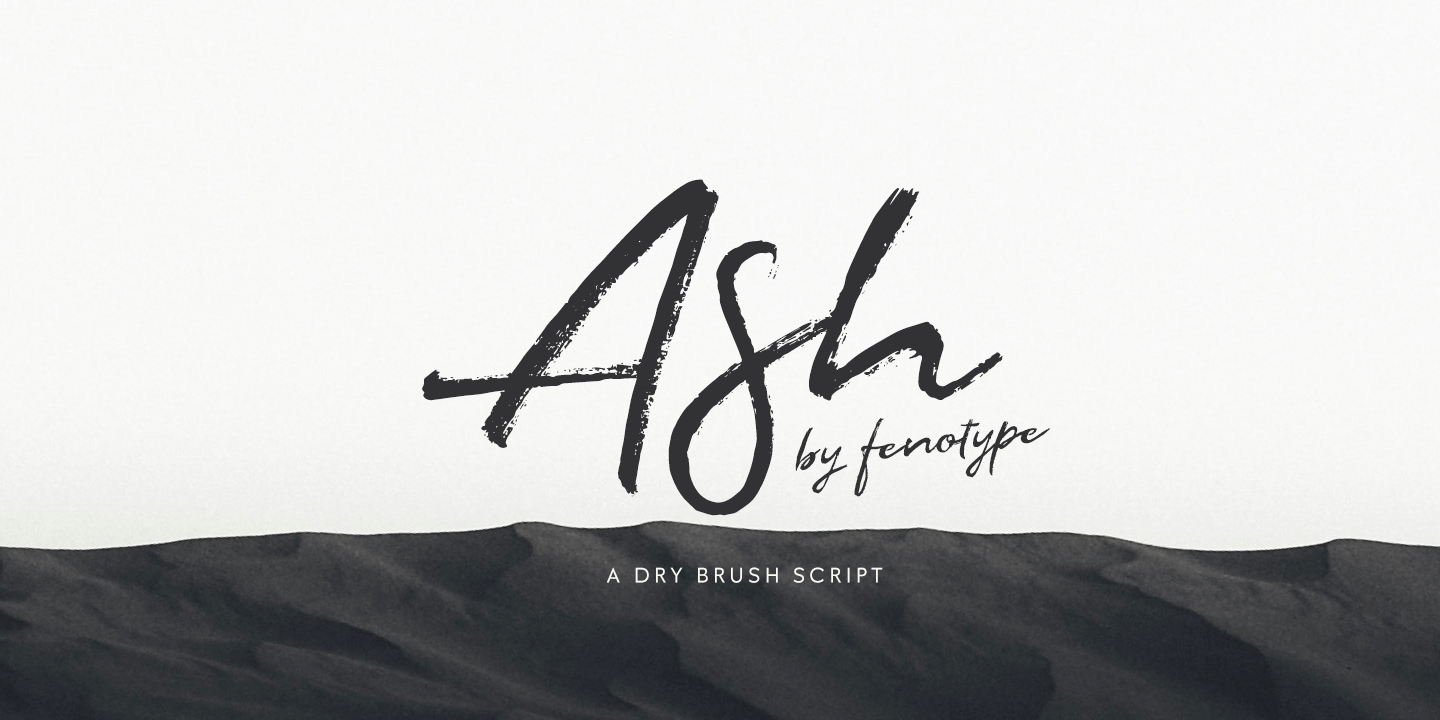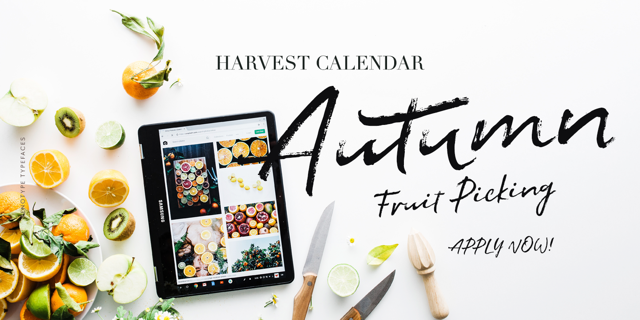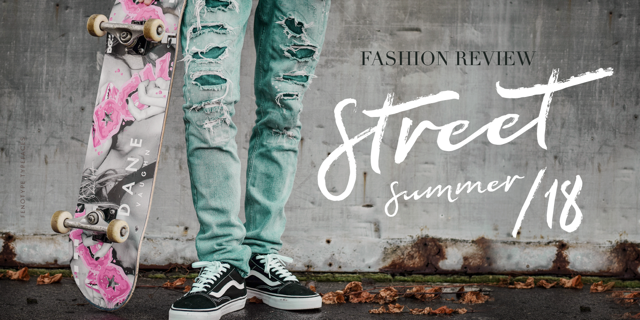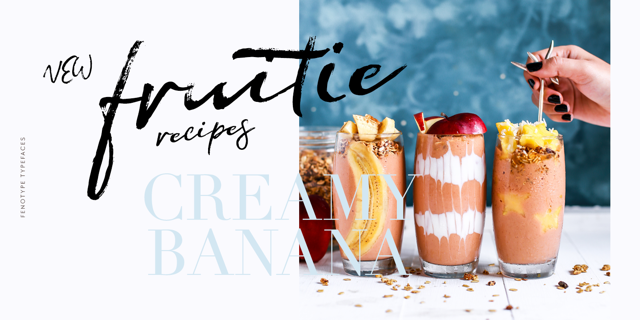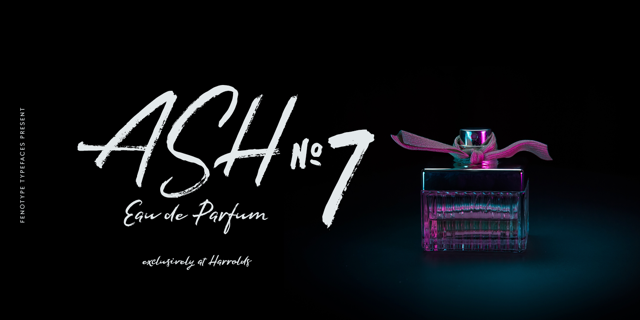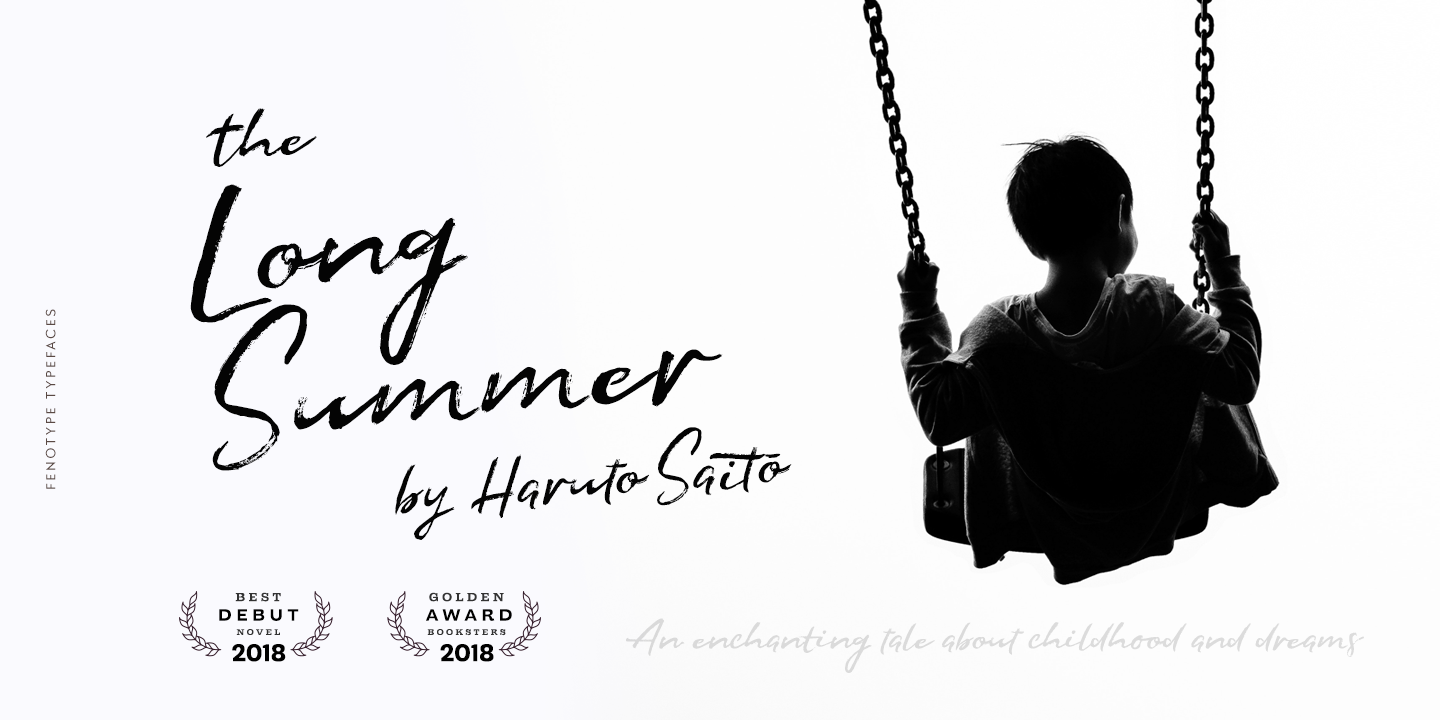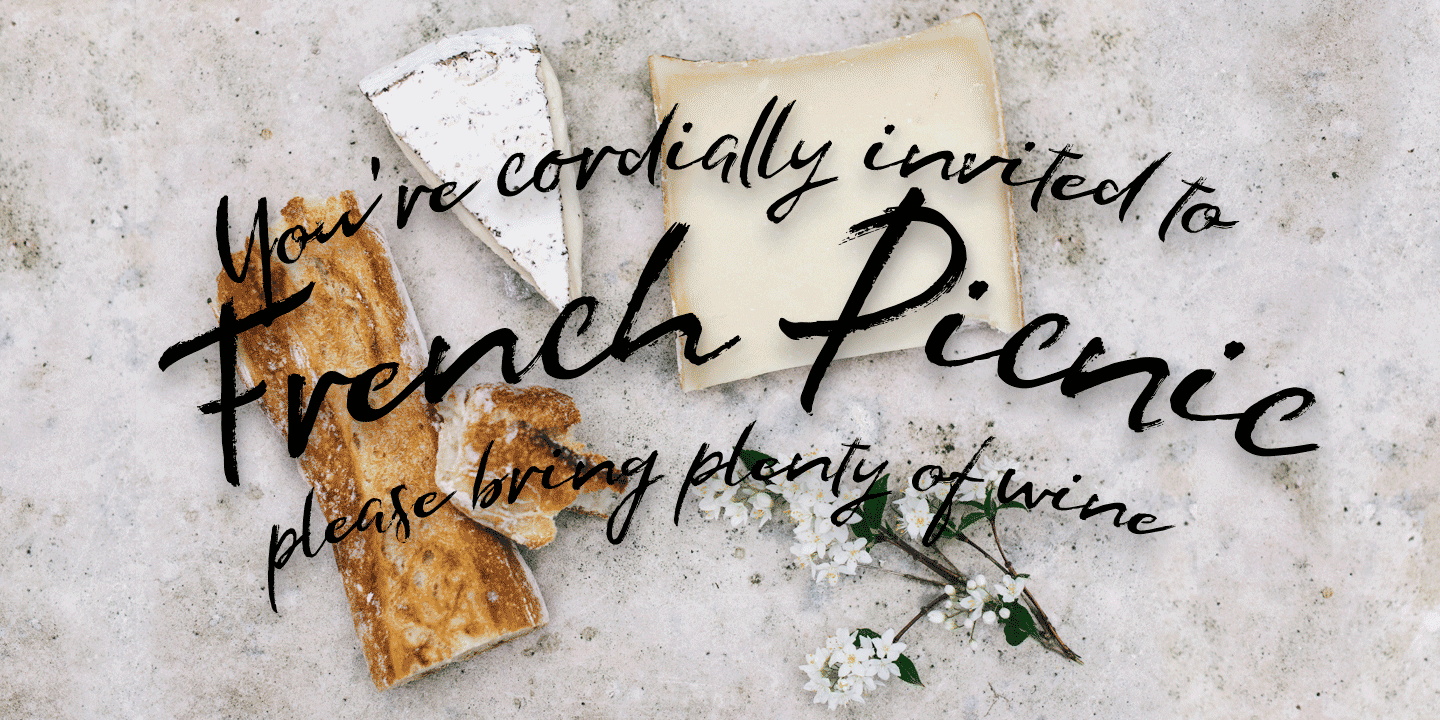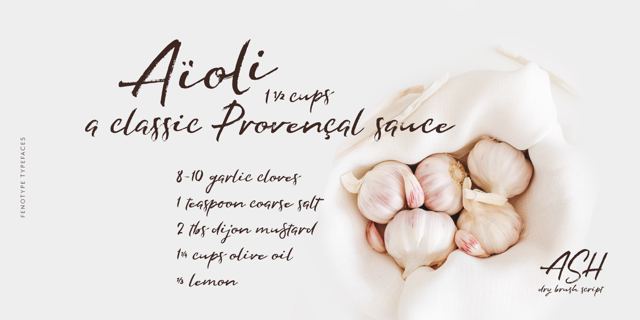
Ash is great display font for a swift hand drawn look.
Ash has wide language support and it is PUA encoded so you can access extra glyphs in most graphic design softwares.
Ash has wide language support and it is PUA encoded so you can access extra glyphs in most graphic design softwares. Baltic, Central/Eastern Europe, Romanian, Turkish, Western Europe
OpenType features: Ligatures, Contextual Alternates, Swash